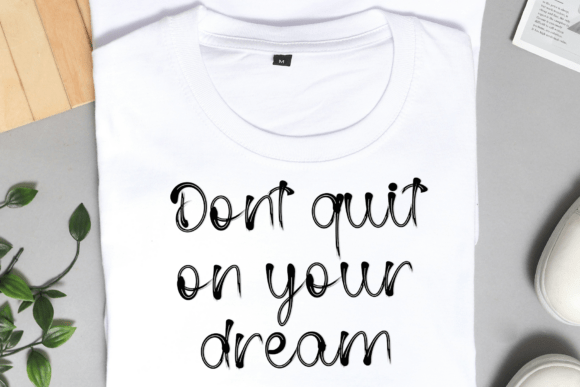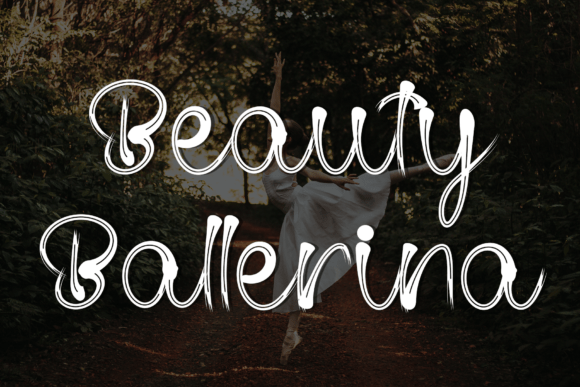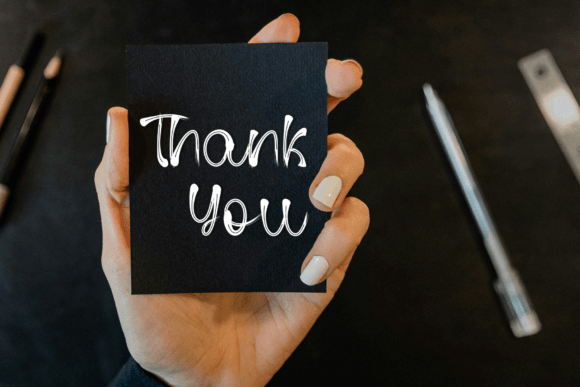
Introduction to Romantica Spring Font
Have you ever been stuck in a creative rut, feeling like your projects are lacking a certain je ne sais quoi? That’s when I stumbled upon the Romantica Spring Font, and suddenly, my designs were infused with a newfound sense of vibrancy and energy. This “modern handmade” typeface is a game-changer for designers looking to add a touch of whimsy and fun to their creative projects.
With its playful, outlined letterforms and slightly textured edge, the Romantica Spring Font is perfect for high-quality designs that require a unique visual rhythm. Whether you’re working on a spring-themed marketing campaign or creating social media graphics for a children’s party, this font is sure to bring a burst of sunshine and creativity to your projects. Plus, with a transparent background, you can easily use it as a design resource for your next creative project.
Key Features of Romantica Spring Font
- High-quality, elegant design perfect for creative projects requiring a touch of romance and sophistication.
- Features a beautiful, hand-drawn design with intricate details and subtle textures, adding a unique touch to any project.
- Perfect for use in graphic design, digital art, and other creative pursuits where a high-quality, custom font is desired.
Honest Review: Romantica Spring Font
I recently had the chance to work with the Romantica Spring Font, and I must say it’s a lovely addition to any design project. The high quality of this font is evident from the start, with its beautiful and delicate script style.
One of the things that works well with the Romantica Spring Font is its versatility. It’s perfect for a variety of creative projects, from wedding invitations to baby announcements. The font is also available for a free download, making it a great resource for designers on a budget.
Here are some of the key features that make the Romantica Spring Font stand out:
- Beautiful script style with a romantic feel
However, one limitation of the Romantica Spring Font is its limited character set. It may not be suitable for longer blocks of text, but it’s perfect for headings and short quotes.
Overall, I’m really impressed with the Romantica Spring Font. It’s a great addition to any design library, and its free download makes it a must-have for any designer working on a creative project. ✨
The Romantica Spring Font is a versatile design resource that can be used in a variety of creative projects, including wedding invitations, baby shower invitations, and birthday party invitations. The font’s elegant and sophisticated design makes it perfect for formal events and special occasions.